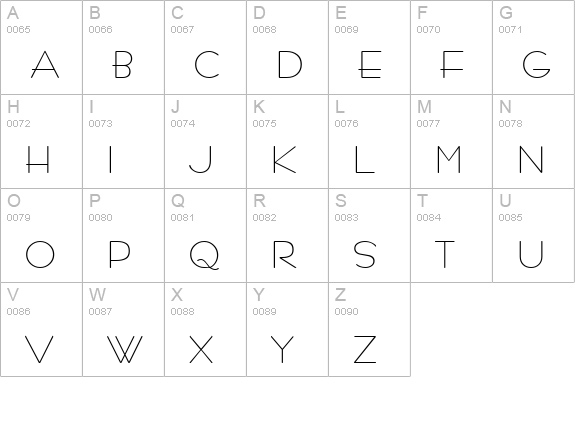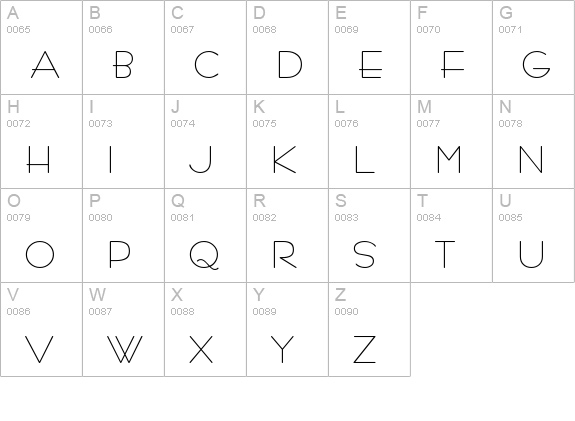
Euterpe Font Details
Euterpe font is a stunning and elegant typeface that exudes sophistication and charm. With its graceful curves and delicate details, Euterpe is perfect for adding a touch of refinement to any project. This timeless font is versatile and can be used for a variety of design purposes, from branding to editorial design. What makes Euterpe font even more appealing is that it is available for free download at FontsMarket.com. This means that you can elevate your designs without breaking the bank. Don't miss out on the opportunity to enhance your projects with the beauty of Euterpe font, now easily accessible for free at FontsMarket.com.